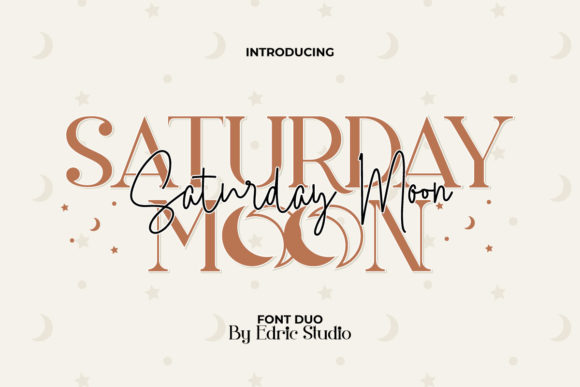
Behold the Saturday Moon Font, a masterpiece that captures the essence of handwritten elegance. Step into a world of creativity where your designs dance with the rhythm of this modern and captivating duo font, a harmonious blend of script and serif.
The script font, with its graceful curves and delicate ligatures, transports you to a realm of heartfelt emotions, where every letter flows seamlessly, evoking the beauty of handwritten notes. Experience the allure of individuality with each alternate character, designed to add a touch of uniqueness to your creations.
The serif font, with its distinctive rounded characters, adds a touch of whimsy and charm to your designs. Its lunar-inspired shapes evoke a sense of celestial magic, inviting you to explore new horizons of creativity. Let your imagination soar as you craft logos that shimmer like stars, posters that ignite passion, and wedding invitations that carry the promise of eternal love.
Saturday Moon Font is your perfect companion for a diverse range of projects. Its versatility shines through whether you're designing breathtaking blog posts, captivating social media graphics, or any other creative endeavor that calls for a touch of sophistication.
Embrace the Saturday Moon Font, and embark on a journey of artistic expression where your words take on a life of their own. Let your designs radiate with the warmth of handwritten charm and the allure of lunar elegance.